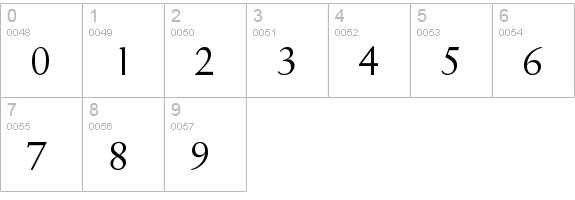
SerifSansRoman Font Details
SerifSansRoman font is a stunning typeface that seamlessly combines the elegance of serif fonts with the modern simplicity of sans-serif designs. With its clean lines and balanced proportions, this font exudes a sense of sophistication and versatility. Perfect for a wide range of design projects, SerifSansRoman font brings a touch of refinement to any layout or composition. Whether used for branding materials, editorial pieces, or digital interfaces, this font effortlessly commands attention and leaves a lasting impression. One of the most remarkable qualities of SerifSansRoman font is that it is freely available to download at FontsMarket.com. This means that designers and creatives can access this extraordinary font without any cost, allowing them to enhance their work with a touch of elegance and professionalism. With its extensive character set and multiple weights, SerifSansRoman font offers endless possibilities for customization and creativity. Its timeless aesthetic and versatility make it an excellent choice for both print and digital applications. Download SerifSansRoman font today from FontsMarket.com and elevate your designs with its timeless elegance and remarkable versatility.